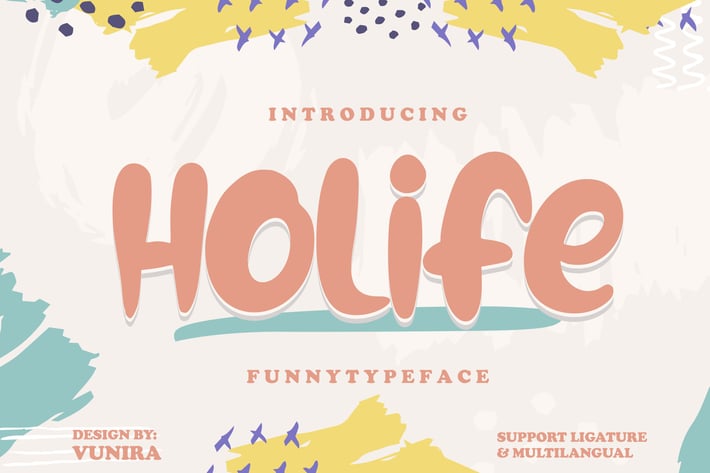
Holife | Funny Typeface Font
Holife | Funny Typeface Font with a calligraphy style, So beautiful on invitation like greeting cards, branding materials, business cards, quotes, posters, and more!